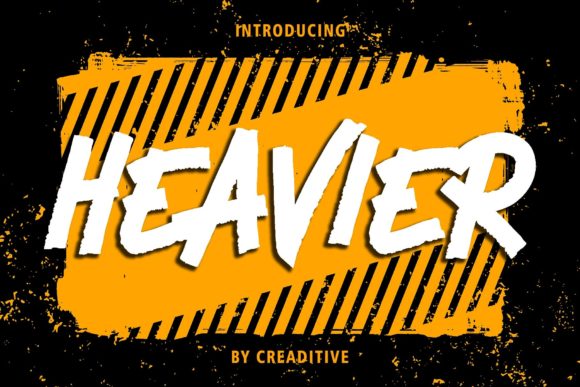
Prepare to be enthralled by Heavier, the font that embodies boldness and swashbuckling charm. Crafted with meticulous attention to detail, this display font is a breathtaking creation by the renowned Creaditive Design. Immerse yourself in the world of typography and let Heavier captivate you with its audacious spirit.
Heavier is a font that demands attention, possessing a unique ability to transform ordinary designs into extraordinary masterpieces. Its confident strokes and tantalizing curves exude an air of sophistication, making it the ideal choice for those seeking to make a statement. Whether you're creating logos, posters, or eye-catching social media graphics, this font will elevate your designs to new heights of excellence.
With Heavier, the possibilities are endless. Unleash your creativity and embark on a typographic adventure where your imagination knows no bounds. This font's versatility extends from branding projects to captivating headlines, leaving a lasting impression wherever it graces. Experience the power of Heavier and witness the transformation of your designs into captivating works of art.
Elevate your designs to the next level with Heavier, the font that embodies the essence of boldness and intrigue. Its captivating presence will leave you breathless, ensuring that your projects stand out from the ordinary. Experience the thrill of typography with Heavier, the font that will redefine your creative journey.